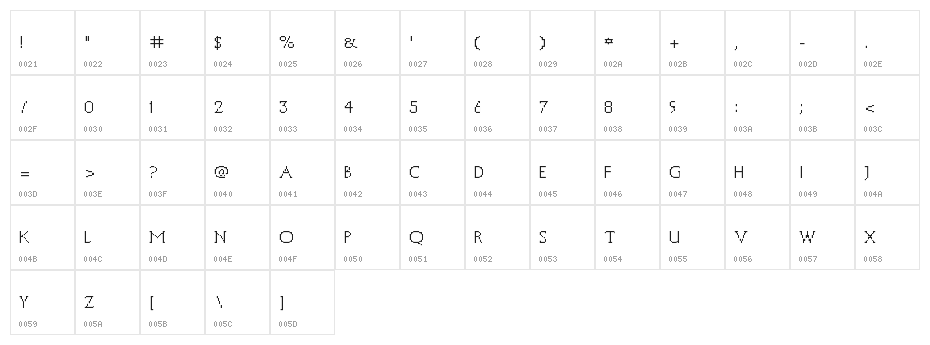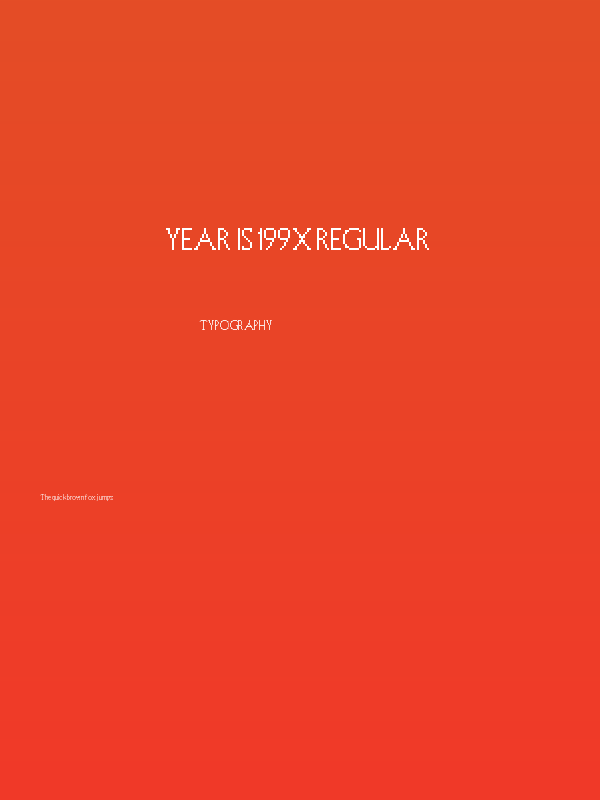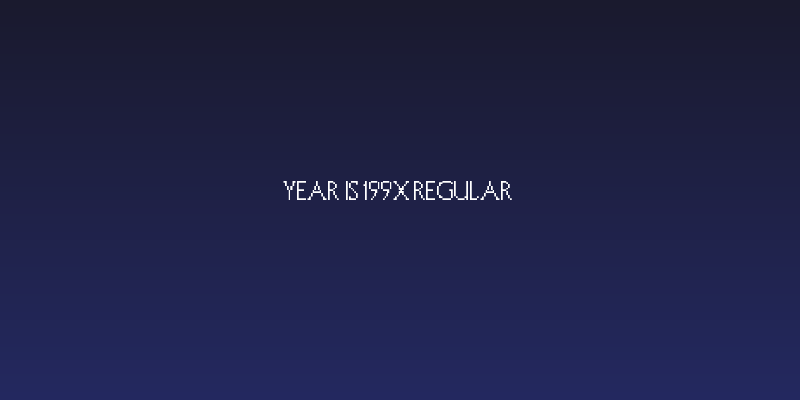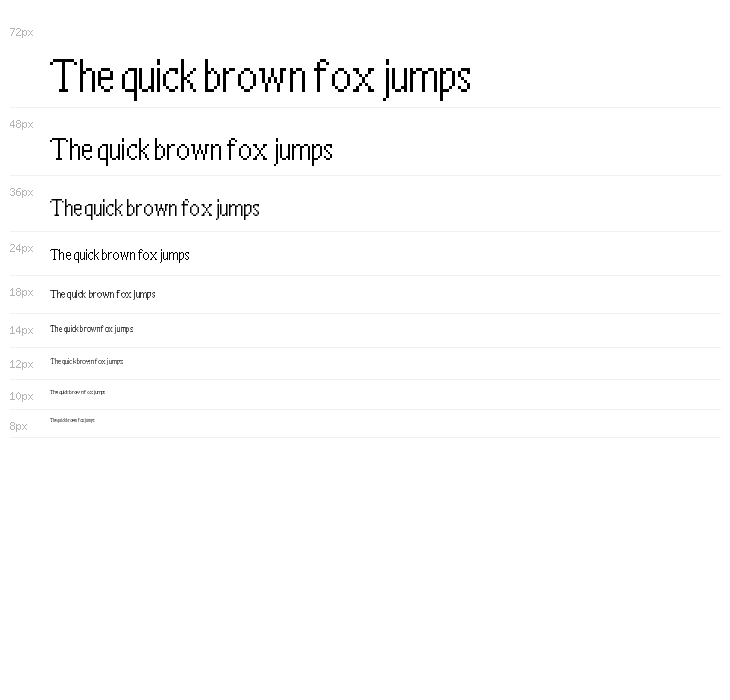
Year Is 199X Regular Font
Year Is 199X Regular Description
This font features a pixelated, retro style reminiscent of early digital displays and video games from the 1990s. The characters are constructed with a grid-like precision, giving them a blocky and geometric appearance. The uppercase and lowercase letters maintain a consistent height, contributing to a uniform look across the text. Numbers and special characters follow the same pixelated design, ensuring a cohesive aesthetic throughout. This style evokes a sense of nostalgia and is perfect for projects aiming to capture a vintage digital or tech-inspired theme.
| Proposed Projects | Ideal for retro video game designs, tech-themed posters, digital art, and nostalgic branding projects. |